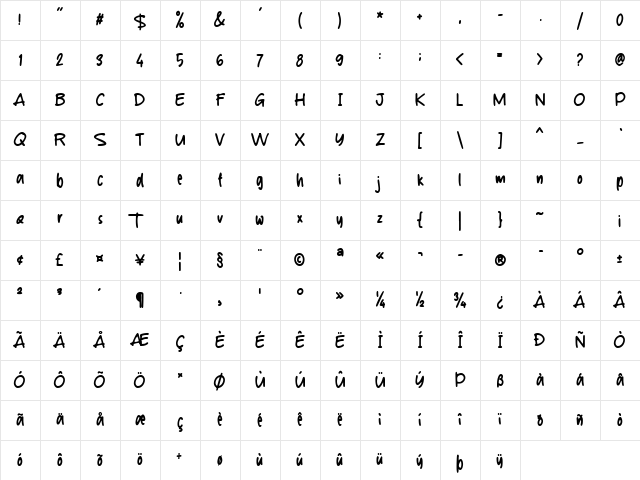
Portiere Regular Free Font
Portiere Regular
Designer: Muhammad Ridha Agusni
Portiere is a composed and adaptable typeface that performs quietly and consistently across a wide range of design contexts.